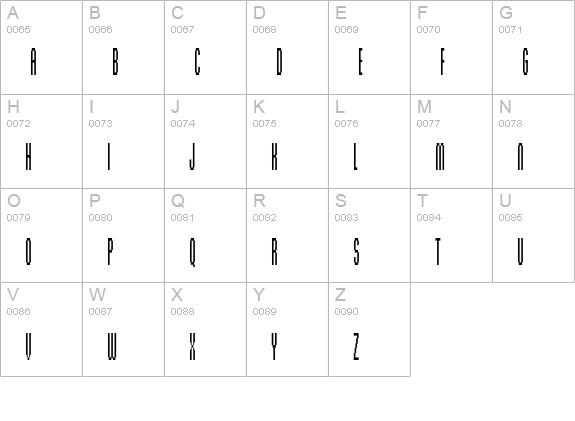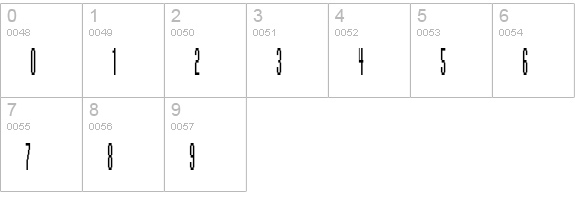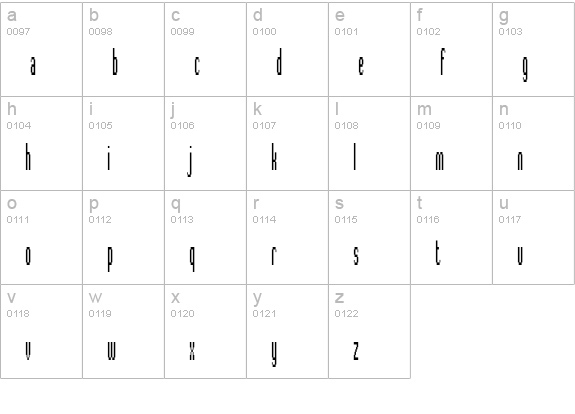
Digitek Std Font Details
Digitek Std is a modern and versatile font that combines sleek lines with a futuristic aesthetic. With its clean and geometric design, Digitek Std is perfect for a wide range of design projects, from branding to web design to print materials. This font exudes a sense of professionalism and sophistication, making it ideal for corporate communication and digital interfaces. What sets Digitek Std apart is its flexibility and adaptability, allowing it to effortlessly complement various design styles and themes. Whether you're looking to create a sleek and minimalist look or a bold and eye-catching design, Digitek Std has you covered. Best of all, Digitek Std is available for free download at FontsMarket.com, making it accessible to designers and creatives of all levels. Don't miss out on the opportunity to enhance your projects with this stylish and contemporary font. Download Digitek Std today and elevate your design work to the next level!